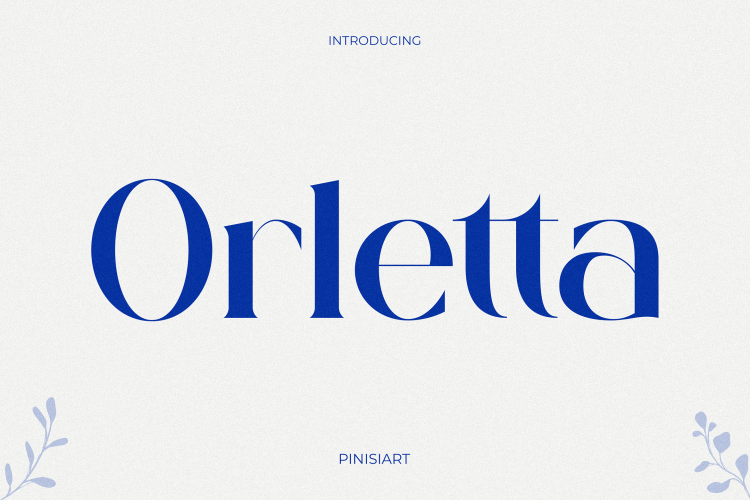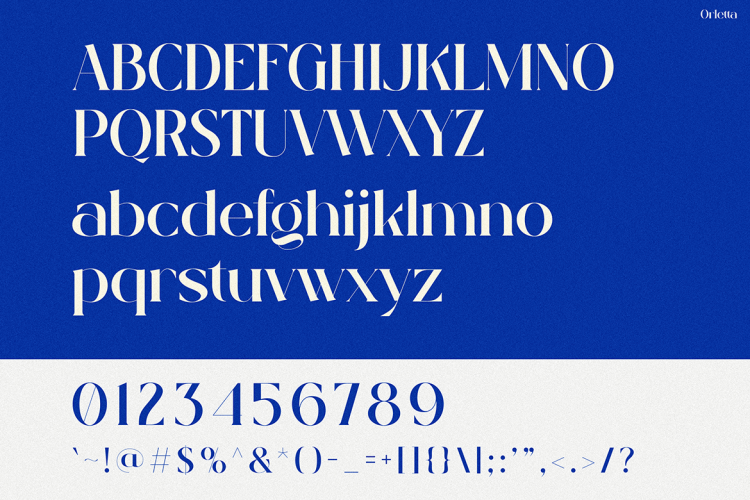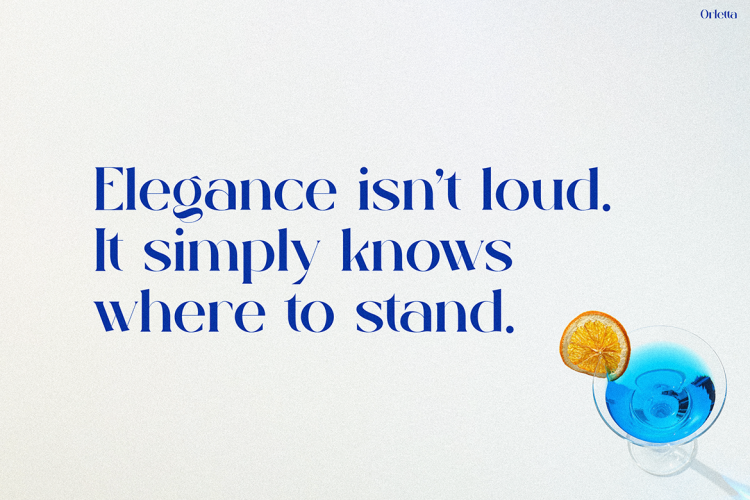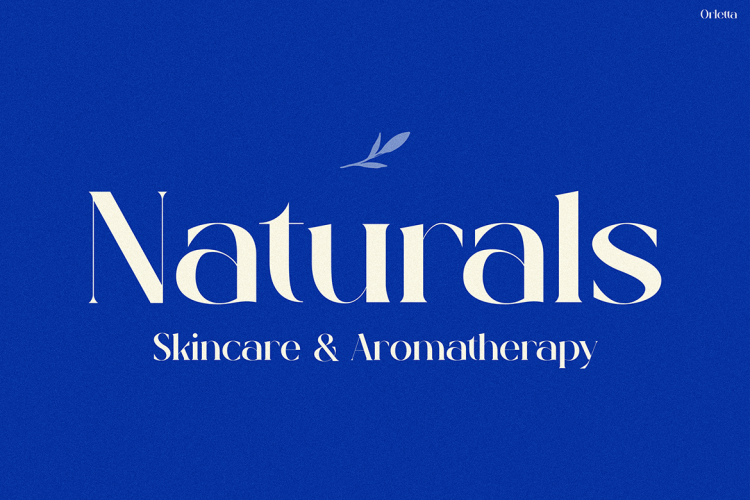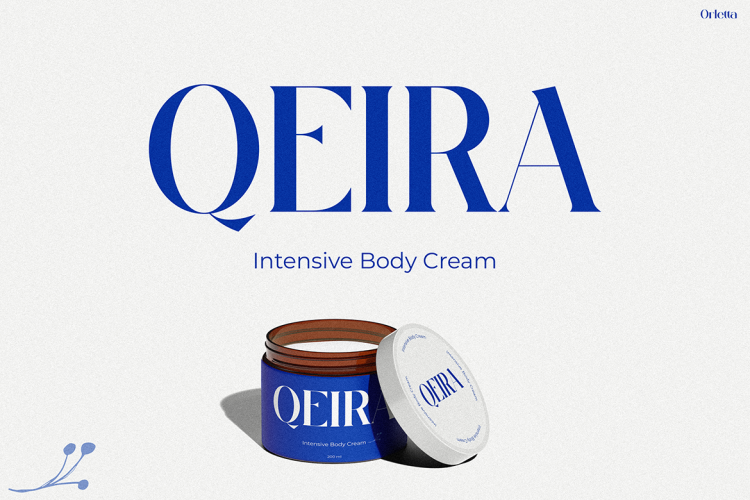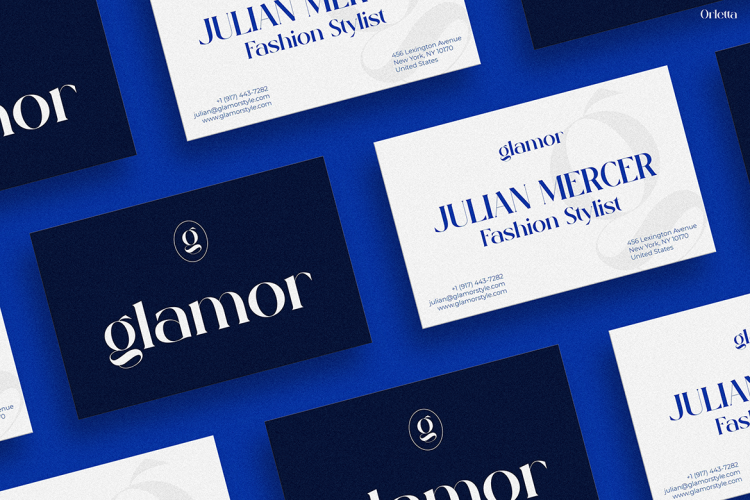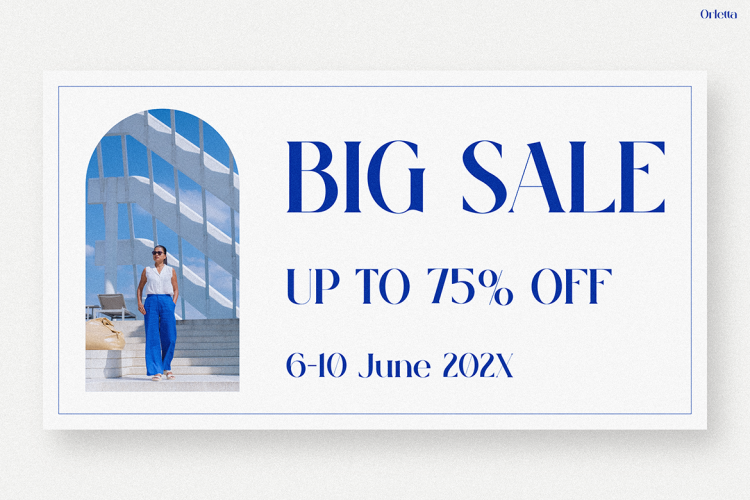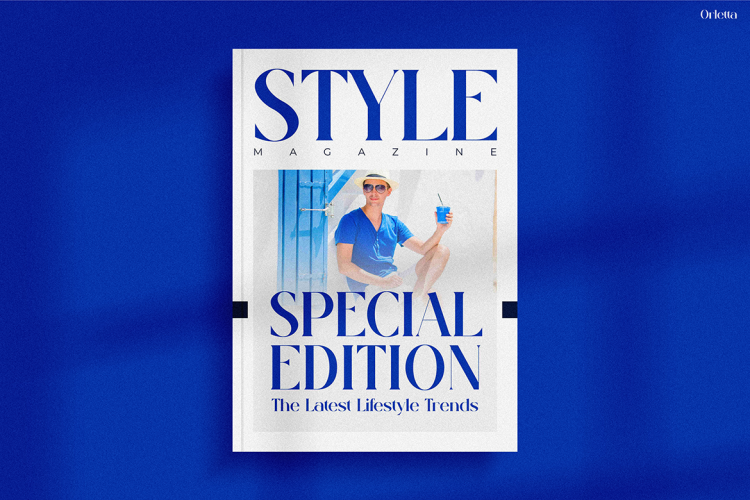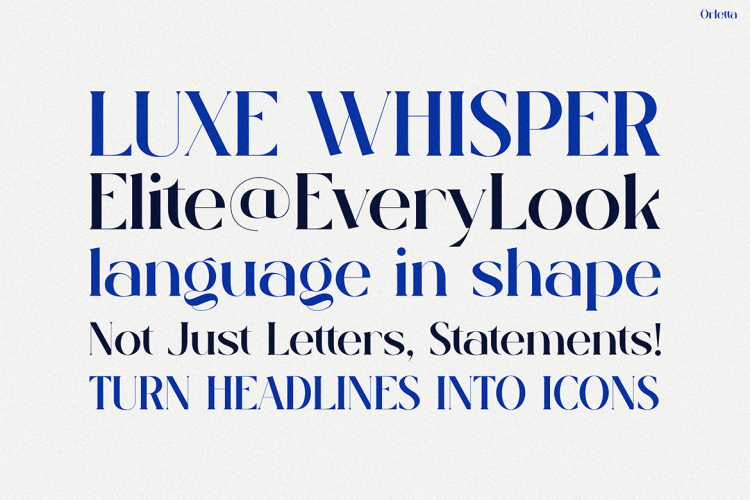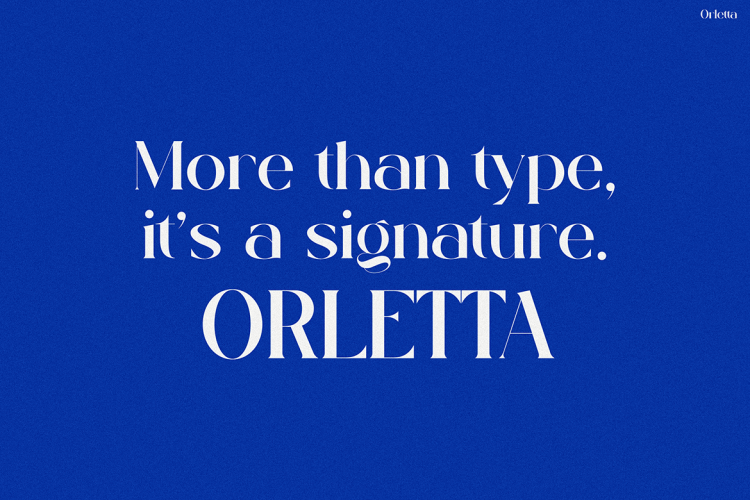
Instagram Font Orletta is the elegant answer to modern branding needsโwhere style meets personality. From the very first glance, Orletta captures attention with its sleek curves, sophisticated contrast, and beautifully crafted letterforms that make every word feel like a signature. Not only does this font stand out visually, but it also brings a unique rhythm to every composition. Moreover, Orletta doesn’t just fill spaceโit communicates class, style, and confidence. Designed to shine on digital platforms like Instagram, Orletta adds a bold visual voice to your content. Whether itโs a headline, a quote post, or a product promo, each letter is built to impress.
What makes Orletta truly unique is its seamless blend of modern geometry with classic high-fashion typography. Each character has been refined with great care to ensure readability while preserving a sophisticated aesthetic. In addition, the clean lines, luxurious appeal, and high-contrast strokes give it a polished yet expressive feel. Consequently, Orletta becomes more than just a fontโit becomes the visual heartbeat of your brand. Especially on visually-driven platforms, it elevates ordinary posts into captivating visuals. As a result, your feed gains consistency, style, and authority.
Instagram Font Orletta Perfect For
Instagram Font Orletta is tailor-made for creatives, content creators, and entrepreneurs aiming to elevate their visual brand. If you’re a fashion blogger, beauty brand owner, luxury lifestyle influencer, or a social media designer, then this font is exactly what you need. Furthermore, itโs a smart choice for those designing cosmetic packaging, editorial layouts, or minimalist product branding.
Typography lovers who wish to communicate elegance without saying a word will instantly connect with Orlettaโs visual rhythm. Additionally, designers working with branding agencies or on freelance projects will find Orletta to be a powerful asset in their creative toolkit. Because of its adaptability, this font works equally well in both bold and subtle design directions.
Make Your Brand Speak in Style
Instead of settling for ordinary text, let your visuals do more with Instagram Font Orletta. In a world full of noise, Orletta helps your content speak clearly and beautifully. So, if youโre ready to turn your typography into a statement, now is the perfect time to invest in a font that not only complements your brandโbut defines it.